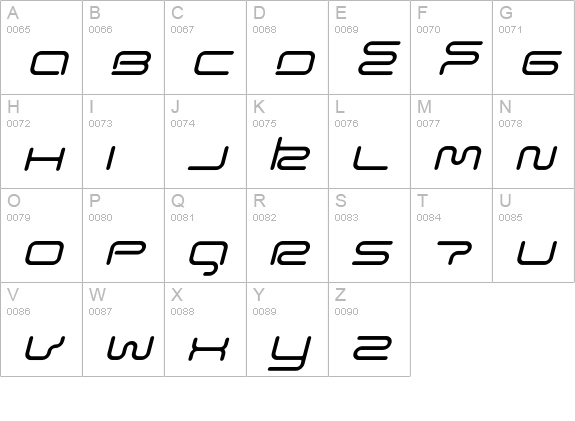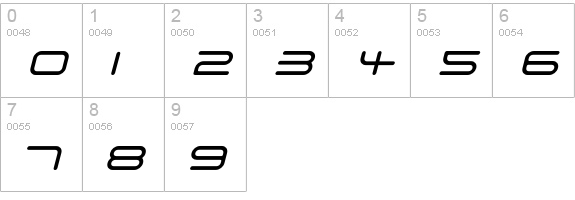
The Euphoric-RegularItalic font exudes a sense of elegance and sophistication with its sleek and slanted design. This italic typeface adds a touch of flair and modernity to any project, making it perfect for creating eye-catching headlines or adding emphasis to text. The fluid curves and subtle slant of the letters give off a sense of movement and energy, making it a versatile choice for a wide range of design applications. Best of all, the Euphoric-RegularItalic font is available for free download at FontsMarket.com. Whether you're a professional designer looking to add a new tool to your collection or a hobbyist looking to spruce up your next project, this font is a fantastic option. Download it today and elevate your designs with the stylish and dynamic Euphoric-RegularItalic font.